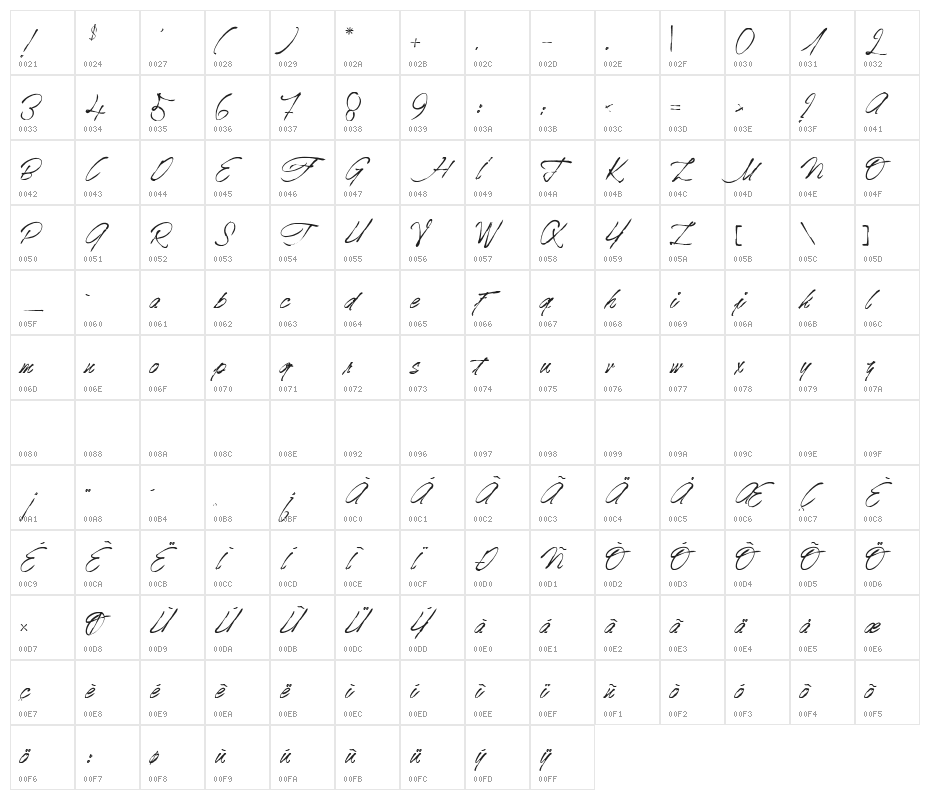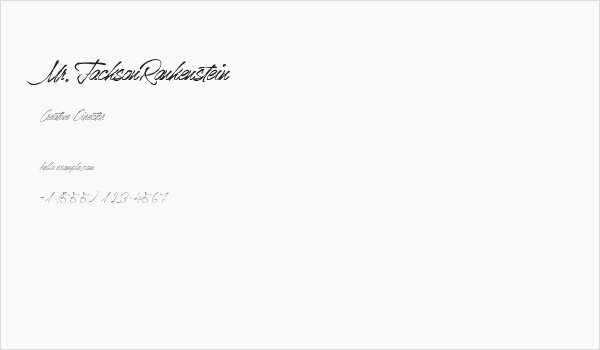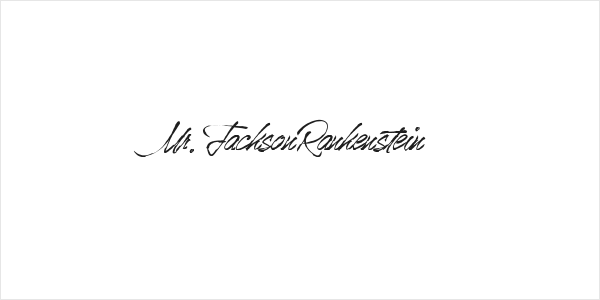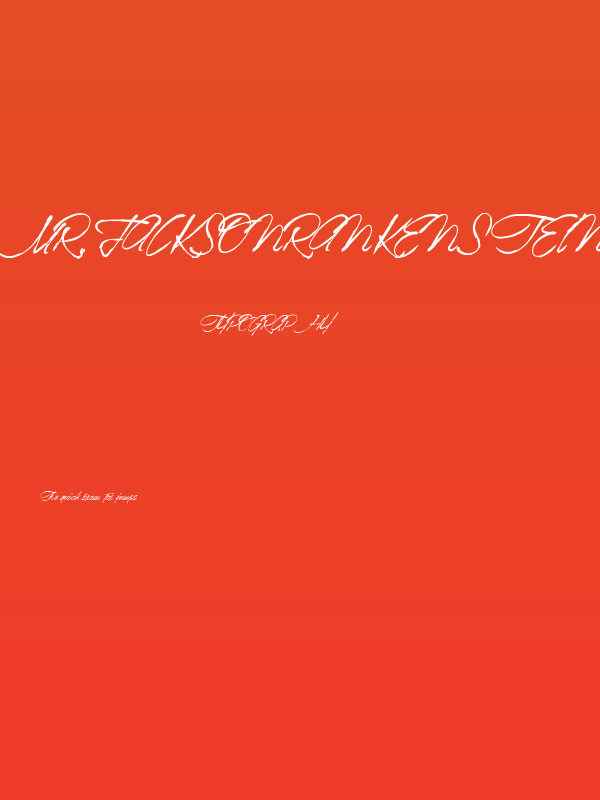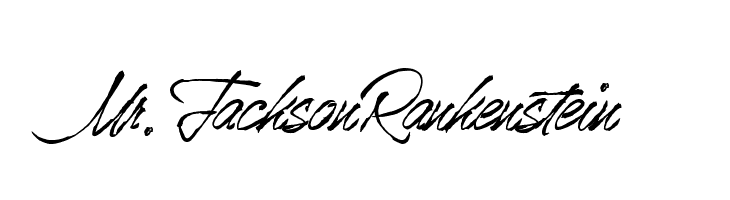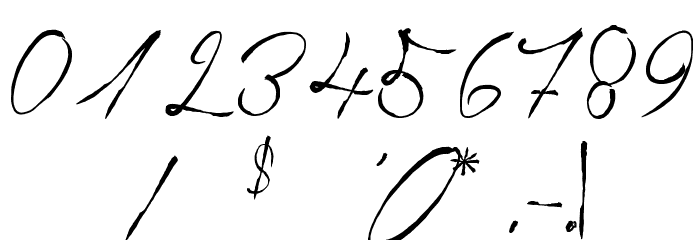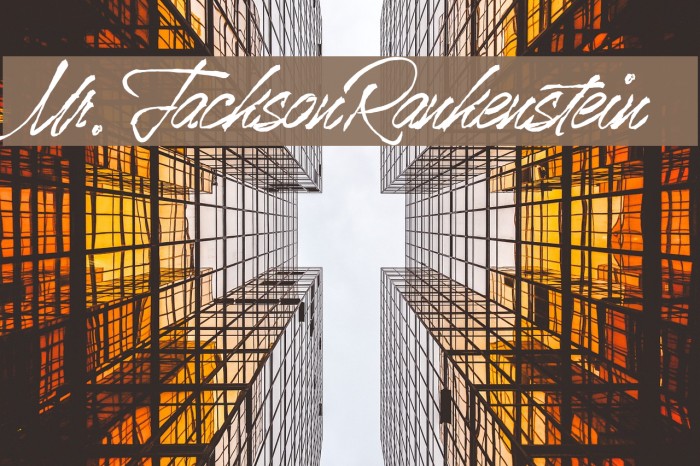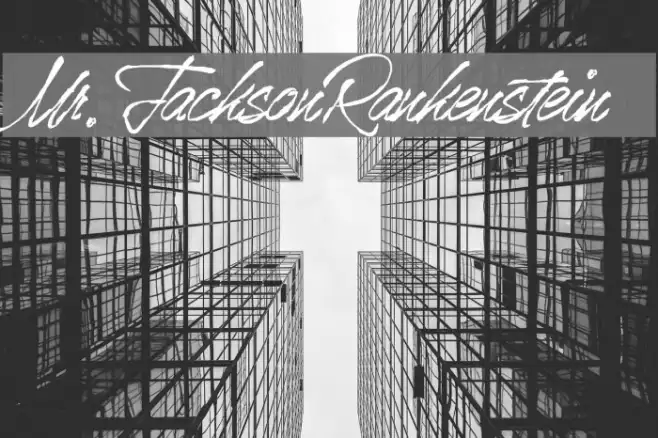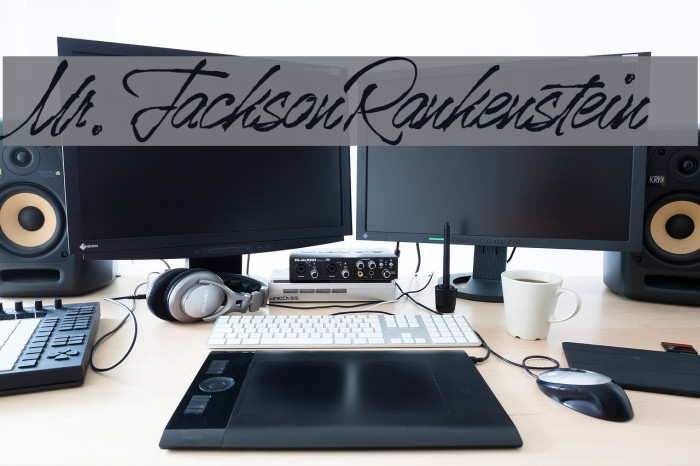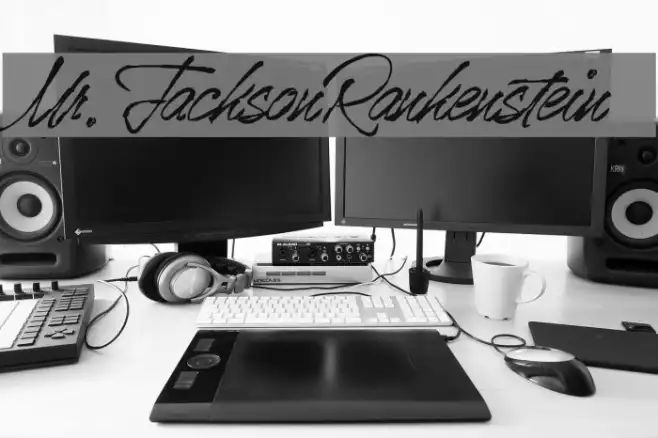
Mr.JacksonRankenstein Font
Mr.JacksonRankenstein Description
This font exudes a dynamic and expressive handwritten style, characterized by its fluid and cursive strokes. The uppercase letters are elegantly elongated, with a slight slant that adds a sense of motion and grace. The lowercase letters maintain a consistent flow, with some characters featuring unique loops and swirls that enhance its artistic appeal. The numerals are distinctively crafted, maintaining the same cursive style, which adds to the overall cohesiveness of the font. Special characters are thoughtfully integrated, ensuring they complement the overall aesthetic. This font is perfect for projects that require a personal touch, such as invitations, greeting cards, or artistic branding.